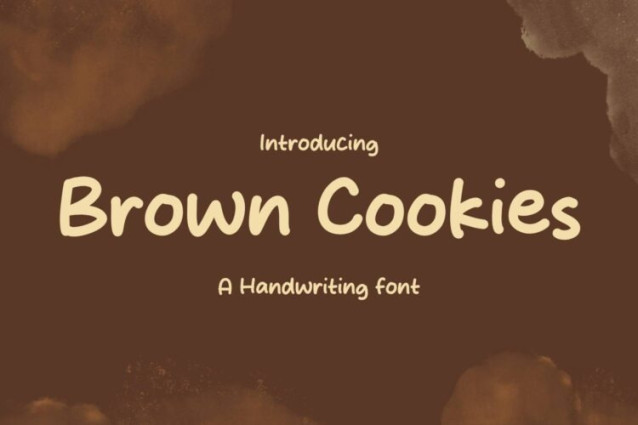
Brown Cookies Font
Brown Cookies Font is a simple and friendly handwritten font. Its natural and unique style makes it incredibly fitting to a large pool of designs. The only limit is your imagination!